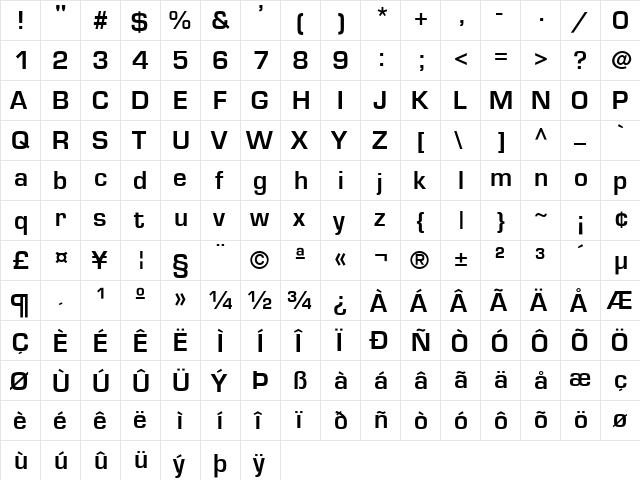
Euromade Bold Regular
Design Context for Euromade Bold Typeface
Euromade Bold offers clean, dependable letterforms without strong stylistic allegiance, making it a practical choice for designers who need flexibility. Its bold stroke weight gives it real presence on the page.